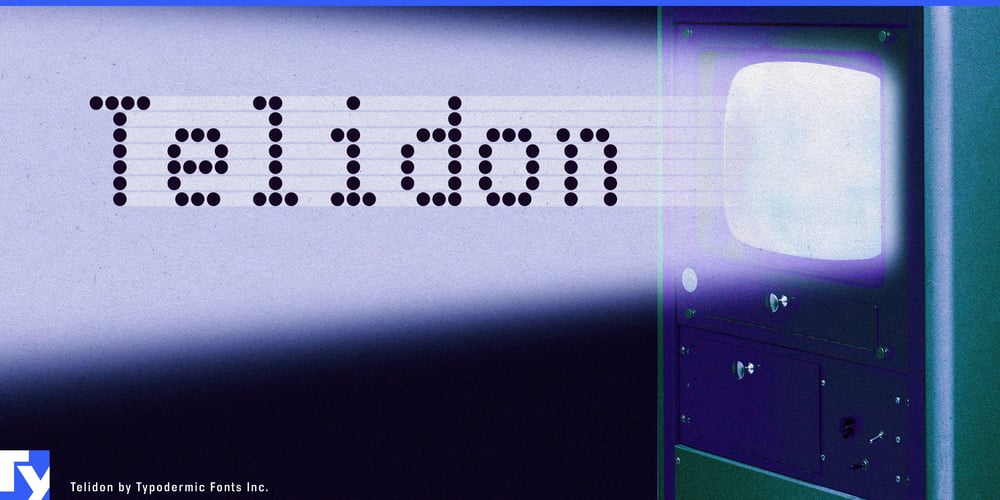
Telidon Font Family was designed by Ray Larabie and published by Typodermic. Telidon contains 18 styles and family package options. Get ready to print your designs with pure pixel panache—Telidon has arrived, and it’s about to dot your i’s and cross your t’s like it’s 1985 all over again. Telidon is ready to transport your projects back to the days when printers were heard and not just seen.Telidon doesn’t just mimic the look of dot matrix printers—it captures their soul. Each character is a tiny rebellion against the smooth, sanitized fonts of today. It’s like your words decided to throw on a pair of leg warmers and hit the arcade. With its quick and simple flavor, Telidon turns every headline into a high score and every logo into a legend. But Telidon isn’t a one-trick pony. Oh no, it’s got more range than a Trapper Keeper has designs. With three widths, three weights, and a set of italics, you’ve got a full arsenal of retro-futuristic firepower at your fingertips. Want to go wide? Telidon’s got you covered. Need to squeeze into a tight space? It can do that too. And when you really need to make a point, its bold weight hits harder than a fully-loaded floppy disk to the forehead.And just when you thought it couldn’t get any better, in walks Telidon Ink—the grungy sidekick that turns the nostalgia up to 11. It’s like Telidon went to a punk concert and came back with attitude. Telidon speaks more languages than a UN interpreter, making it perfect for global designs with a local feel. From Afrikaans to Zulu, it’s ready to bring its pixelated charm to audiences worldwide.So why settle for fonts that look like they were born yesterday when you can have one that’s been around the block? Download Telidon today and watch as your designs start buzzing with the electric energy of a bygone era. It’s time to make some noise in the quiet world of modern typography—and Telidon is here to lead the charge, one dot at a time.